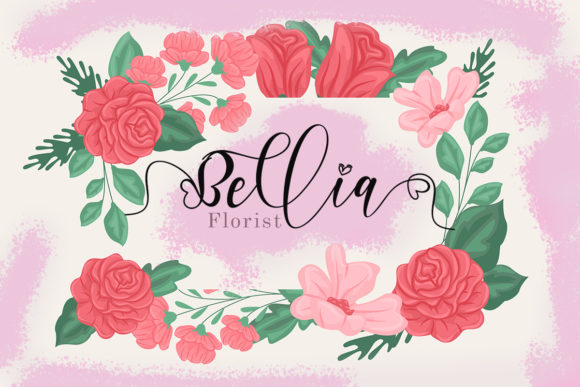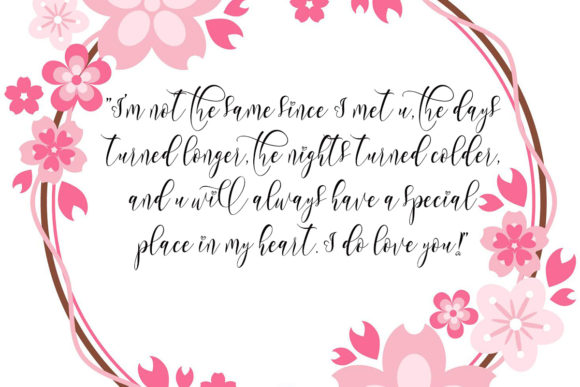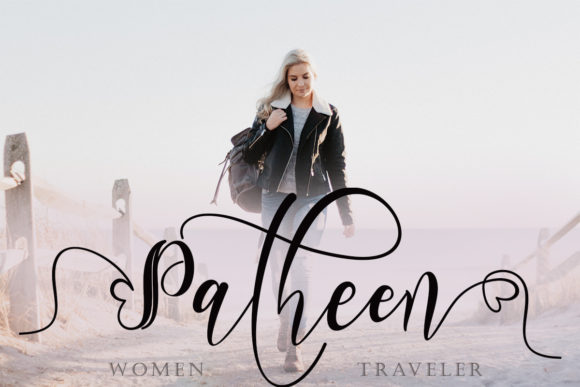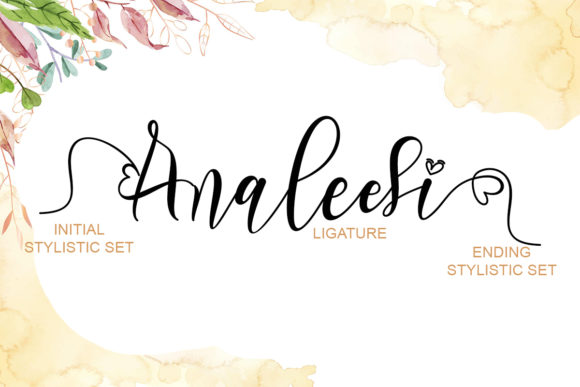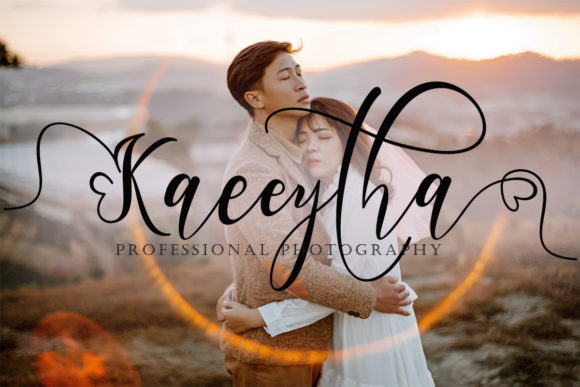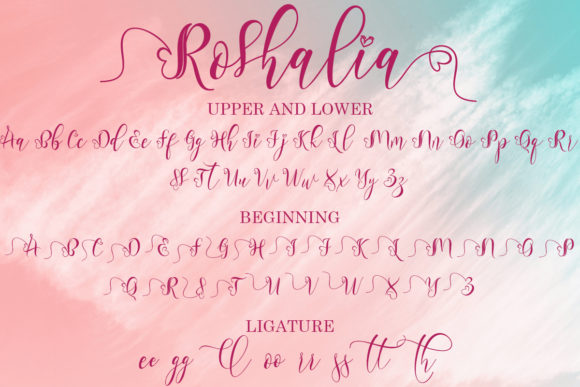
Introduction to Roshalia Font
Roshalia is a romantic and sweet calligraphy typeface with characters that dance along the baseline.
It has a casual, yet elegant touch This font is PUA encoded which means you can access all of the glyphs and swashes with ease.
Key Features of Roshalia Font